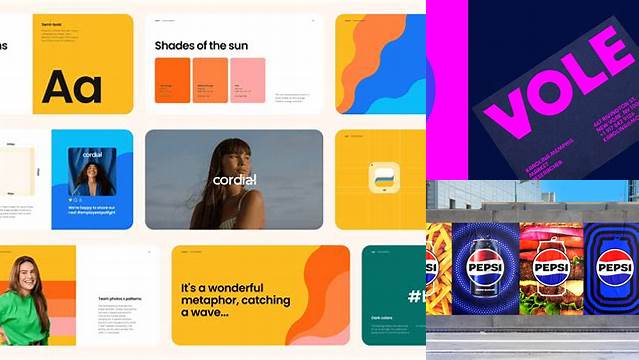
Geometric Fonts For Logos: A Comprehensive Guide
Are you looking to create a memorable logo? Well, you're in the right place! In this article, we'll dive deep into the world of geometric fonts for logos, exploring their unique characteristics and why they're a fantastic choice for a wide range of brands. We'll cover everything from the basics of geometric design to how to choose the perfect font for your specific needs. So, get ready to level up your logo game!
Understanding Geometric Fonts and Their Appeal
Firstly, what exactly are geometric fonts? These fonts are characterized by their clean lines, simple shapes, and mathematical precision. Think circles, squares, triangles, and other fundamental geometric forms. These shapes are the building blocks of these fonts, giving them a modern, often minimalist aesthetic. But why are they so popular? Well, there are several reasons. Firstly, geometric fonts convey a sense of order, stability, and reliability. This makes them perfect for brands that want to project an image of trustworthiness and professionalism. Secondly, their simplicity makes them incredibly versatile. They can be easily adapted to various design applications, from websites and business cards to packaging and advertising materials. Plus, geometric fonts often have a timeless quality. They don't usually follow fleeting trends, so your logo will likely stay fresh for years to come. The clean lines and balanced forms of these fonts are inherently pleasing to the eye, making your logo more memorable and visually appealing. When choosing a font, think about your target audience and the message you want to convey. Are you aiming for a tech-savvy, modern feel? Or perhaps a more classic, elegant look? Geometric fonts can fit both bills, thanks to their versatility. The key is to choose the right font that complements your brand's personality. Furthermore, they often work well in various sizes and formats, making them ideal for a range of applications. Whether it's a small icon on a mobile app or a large billboard advertisement, a geometric font will maintain its clarity and impact. Moreover, they're easy to read, even from a distance. This is crucial for brand recognition, as your logo needs to be instantly recognizable, no matter where it's displayed. Many brands are incorporating geometric designs to appeal to modern consumers who appreciate clean, uncluttered aesthetics. Choosing the right geometric font can make a real difference in your branding. The precise nature of the shapes allows for a high degree of customization, providing designers with the flexibility to create unique and memorable logos. So, if you're ready to create a logo that stands out, keep reading to discover how to select the perfect geometric font for your brand.
Benefits of Using Geometric Fonts in Logos
Geometric fonts offer numerous advantages that can significantly elevate your brand's visual identity. Let's explore some key benefits. First off, they bring a sense of modernity and sophistication. In a world saturated with visual information, a clean, geometric font helps your logo stand out from the crowd. The sleek, uncluttered look instantly communicates a forward-thinking, innovative approach. This can be particularly effective for tech companies, startups, or any brand looking to position itself as contemporary. Secondly, these fonts enhance readability and clarity. The structured forms and consistent letter shapes make them easy to read at various sizes and across different mediums. This is critical for ensuring that your brand name is immediately recognizable, whether it appears on a website, a product, or a business card. Thirdly, these fonts are incredibly versatile. Their simplicity allows them to adapt seamlessly to a wide variety of applications. This versatility ensures that your logo will look great, no matter where it's used. This is crucial for maintaining brand consistency across all your marketing materials. Furthermore, these fonts are often timeless. Unlike fonts that are heavily influenced by current trends, geometric designs tend to have a lasting appeal. By choosing a geometric font, you're making an investment in a logo that will remain relevant for years to come. Also, the clean lines and balanced proportions of these fonts are inherently pleasing to the eye. This aesthetic quality contributes to a positive brand perception. This contributes to a professional image. This can make your brand more trustworthy and appealing to customers. Another advantage is that these fonts provide a foundation for creating a cohesive brand identity. The geometric shapes can be used to create other design elements, such as patterns, icons, and illustrations, creating a consistent visual language throughout your branding. They can also evoke specific emotions and associations. For example, a font with sharp angles might convey strength and precision, while a font with rounded shapes might feel more friendly and approachable. So, by choosing the right geometric font, you can communicate your brand's values and personality effectively. These factors combined can lead to an improved user experience.
Choosing the Right Geometric Font for Your Brand
Choosing the perfect geometric font can feel a bit overwhelming, but don't worry; we're here to guide you through the process. First, consider your brand's personality and values. What do you want to communicate to your target audience? Are you aiming for a sense of innovation, reliability, or playfulness? Your font choice should align with these aspects. Secondly, think about your industry. Some fonts are better suited for certain industries than others. For example, a clean, minimalist font might be ideal for a tech company, while a more playful, rounded font could be great for a children's brand. Thirdly, explore different font styles. Geometric fonts come in various forms, from sans-serifs (without serifs) to rounded and condensed versions. Sans-serif fonts are often seen as modern and clean, while rounded fonts can feel friendlier and more approachable. Also, condensed fonts are ideal for logos that require a more compact design. Fourthly, consider the readability of the font. Make sure that it's easy to read at different sizes and in various contexts. You want your brand name to be clear and legible, whether it's on a business card or a billboard. Fifth, test your chosen font. Try it out in different logo designs and see how it looks in different applications. Does it work well with your brand's color palette and other design elements? Does it look good in both digital and print formats? Also, evaluate the font's availability and licensing. Ensure that the font you choose is available for commercial use and that you have the appropriate license to use it in your logo. Furthermore, research the font's history and origin. Some fonts have a rich history, while others are more modern. Knowing a bit about a font's background can help you understand its character and how it might resonate with your audience. Experiment with different variations of the font, such as bold, italic, or light versions. This can add versatility to your logo design and allow you to create different visual effects. Moreover, consider how the font will be used in other branding materials, such as websites, social media, and packaging. The font you choose should be adaptable and work well in all these contexts. By following these steps, you can choose a geometric font that perfectly represents your brand.
Popular Geometric Fonts and Their Characteristics
Let's dive into some popular geometric fonts that are used across many brands and explore their characteristics. First up, we have Futura. Futura is a classic sans-serif font known for its clean lines and geometric shapes. It's a versatile choice that conveys modernity and efficiency. It's often used by brands that want to project a sense of professionalism and sophistication. Futura is excellent for print and digital applications. Next, we have Gotham. Gotham is a more modern sans-serif font with a strong, bold presence. It's known for its simple, clean design and versatility. Gotham is a good choice for brands looking to project strength, reliability, and approachability. Gotham is very popular for logos and headlines. Furthermore, let's talk about Raleway. Raleway is a sans-serif font known for its elegant and refined look. It's a good choice for brands that want to project a sense of sophistication and style. Raleway is suitable for both print and digital uses, making it a practical choice for various applications. There is also Montserrat, another great choice. Montserrat is a versatile and modern sans-serif font inspired by the architecture of the Montserrat neighborhood in Buenos Aires. Its clean, geometric forms and excellent readability make it suitable for various applications. It is often used by businesses that aim for a clean and contemporary look. Additionally, there is Avenir. Avenir is a sans-serif font characterized by its rounded shapes and balance. It’s a great choice for brands that want to convey friendliness, approachability, and a modern aesthetic. Avenir has a wide range of weights and styles, making it versatile for both headings and body text. Moreover, Lato is a sans-serif font known for its friendly and approachable design. It features slightly rounded corners and a clean, modern look. Lato is suitable for various design applications, providing a balance of legibility and style. The choice of a font has the power to change the user experience.
Tips for Designing a Logo with Geometric Fonts
Ready to start designing your logo? Here are some tips to help you use geometric fonts effectively. Firstly, keep it simple. The beauty of geometric fonts lies in their simplicity. Avoid overcrowding your logo with too many elements. A clean, uncluttered design is usually the most effective. Secondly, choose the right font pairing. If you're using a geometric font for your brand name, consider pairing it with a complementary font for other elements, such as a tagline or body text. The fonts should work together to create a cohesive and visually appealing design. Next, pay attention to the spacing and kerning. Adjust the spacing between the letters (kerning) to ensure that the logo looks balanced and professional. Poor kerning can make your logo look amateurish. Then, experiment with different colors. Colors can significantly impact how people perceive your brand. Choose colors that align with your brand's personality and values. It is also a good idea to try different color combinations to see what looks best with your font. After that, use negative space effectively. Negative space (the space around and between elements) can be a powerful design tool. Using it effectively can help create a balanced and visually appealing logo. Always consider your logo's scalability. Make sure that your logo looks good at different sizes, from a small icon on a mobile app to a large banner ad. Test it out in various applications to ensure its clarity and legibility. Lastly, seek feedback. Once you've created your logo, get feedback from others. Ask friends, family, or design professionals for their opinions. This can help you identify any potential issues and make improvements. The combination of these tips will help you create a memorable logo.
Geometric Fonts and Logo Design Trends
Keep an eye on current trends to stay on top of the game. In logo design, geometric fonts are consistently popular, and they often evolve with current design trends. Right now, minimalism and clean design are still big. This means that simple, uncluttered logos with a geometric font are more popular than ever. Many brands are opting for flat designs with bold colors and geometric shapes. This creates a modern, visually appealing look. Also, there's a growing interest in using geometric fonts in combination with other design elements, such as illustrations or custom icons. This adds a unique touch to the logo while still maintaining the clean, geometric feel. Brands are also using these fonts in a more creative way. Brands are not afraid to experiment with different weights, styles, and variations of the font. This allows for a greater degree of personality and uniqueness. Additionally, responsive logos are becoming increasingly important. This means designing logos that can adapt to different screen sizes and formats. Geometric fonts are particularly well-suited for responsive designs because of their simplicity and readability. Moreover, there's a growing focus on brand storytelling. Brands are using their logos to communicate their values and tell a story. When you consider these trends, you can use geometric fonts and design strategies for a successful branding.
Conclusion: Elevate Your Brand with Geometric Fonts
Choosing a geometric font for your logo can be a game-changer for your brand. These fonts offer a unique blend of modern aesthetics, versatility, and timeless appeal. By understanding the benefits of geometric design, selecting the right font for your brand, and following some simple design tips, you can create a logo that's both visually striking and effective in conveying your brand's message. Remember to keep it simple, experiment with different styles, and always consider the long-term impact of your design choices. A well-designed logo is a crucial element of your brand identity, and a geometric font can provide the foundation for a strong and memorable visual identity. So, go ahead, explore the world of geometric fonts, and see how they can elevate your brand to new heights! Good luck, and happy designing!